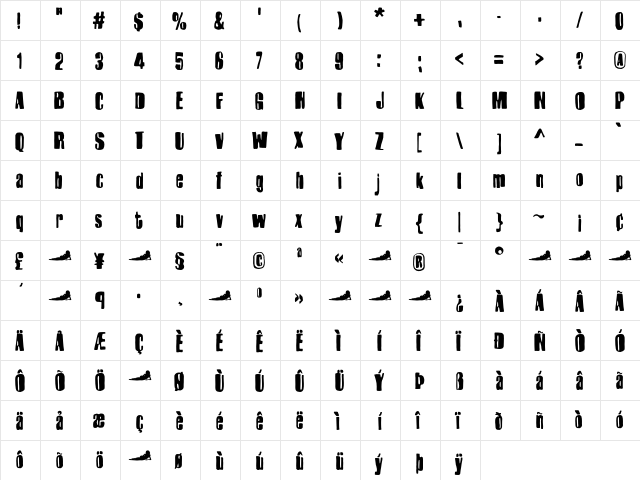
Harlem-SlangBold Regular
Design Context for Harlem-SlangBold Typeface
Harlem-SlangBold is a composed and adaptable typeface that performs quietly and consistently across a wide range of design contexts. The heavy weight commands attention and anchors typographic hierarchies.